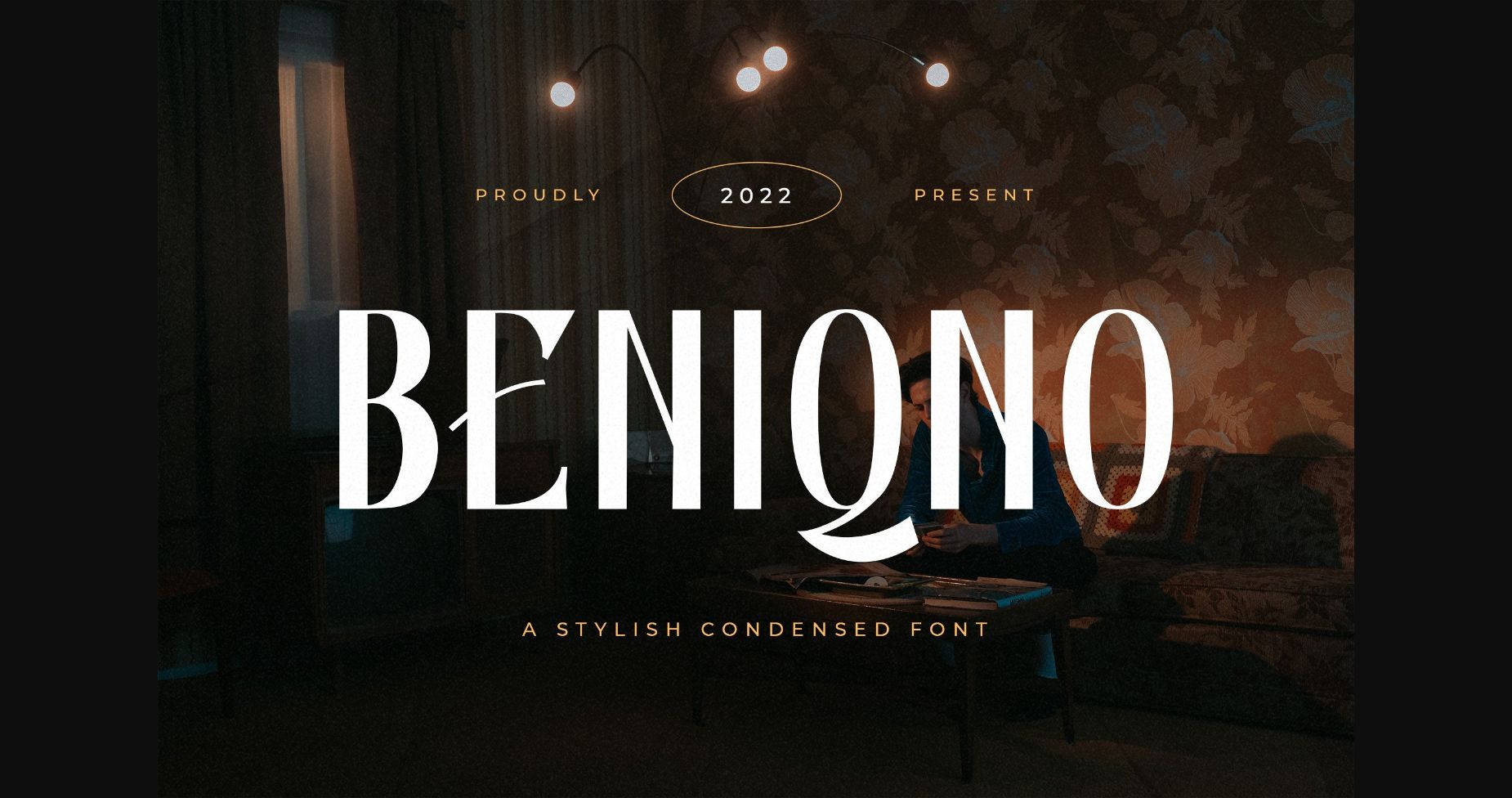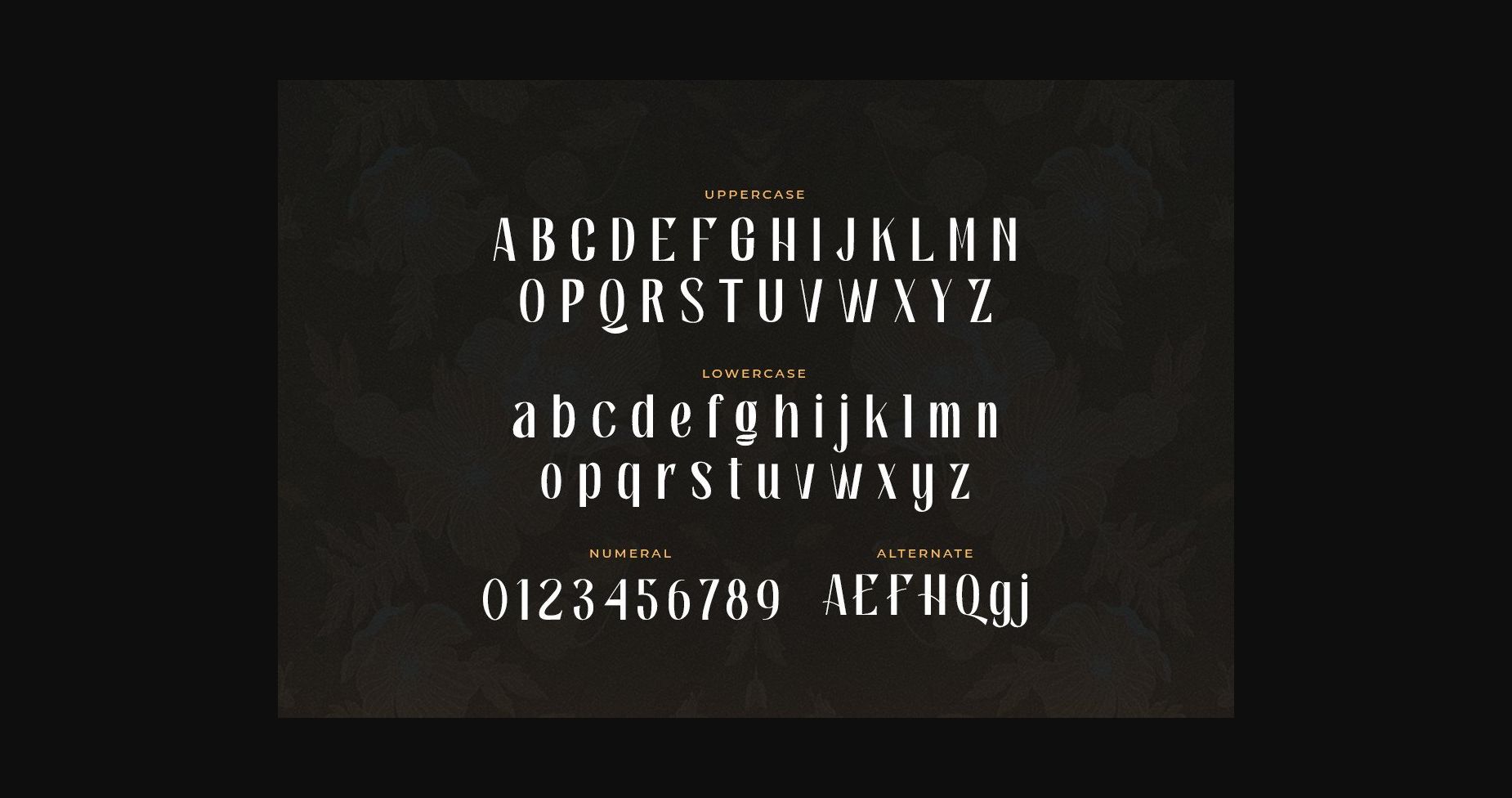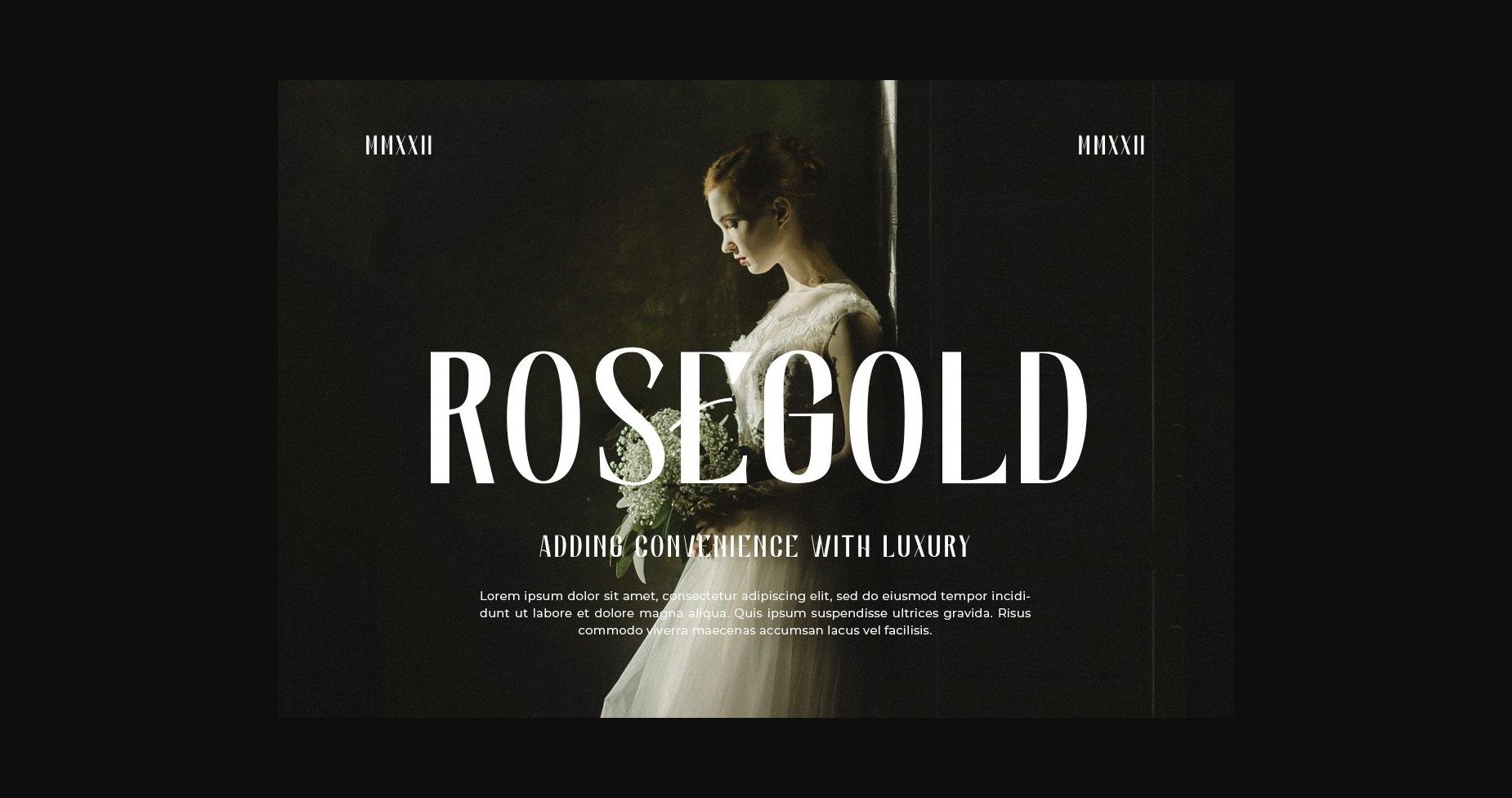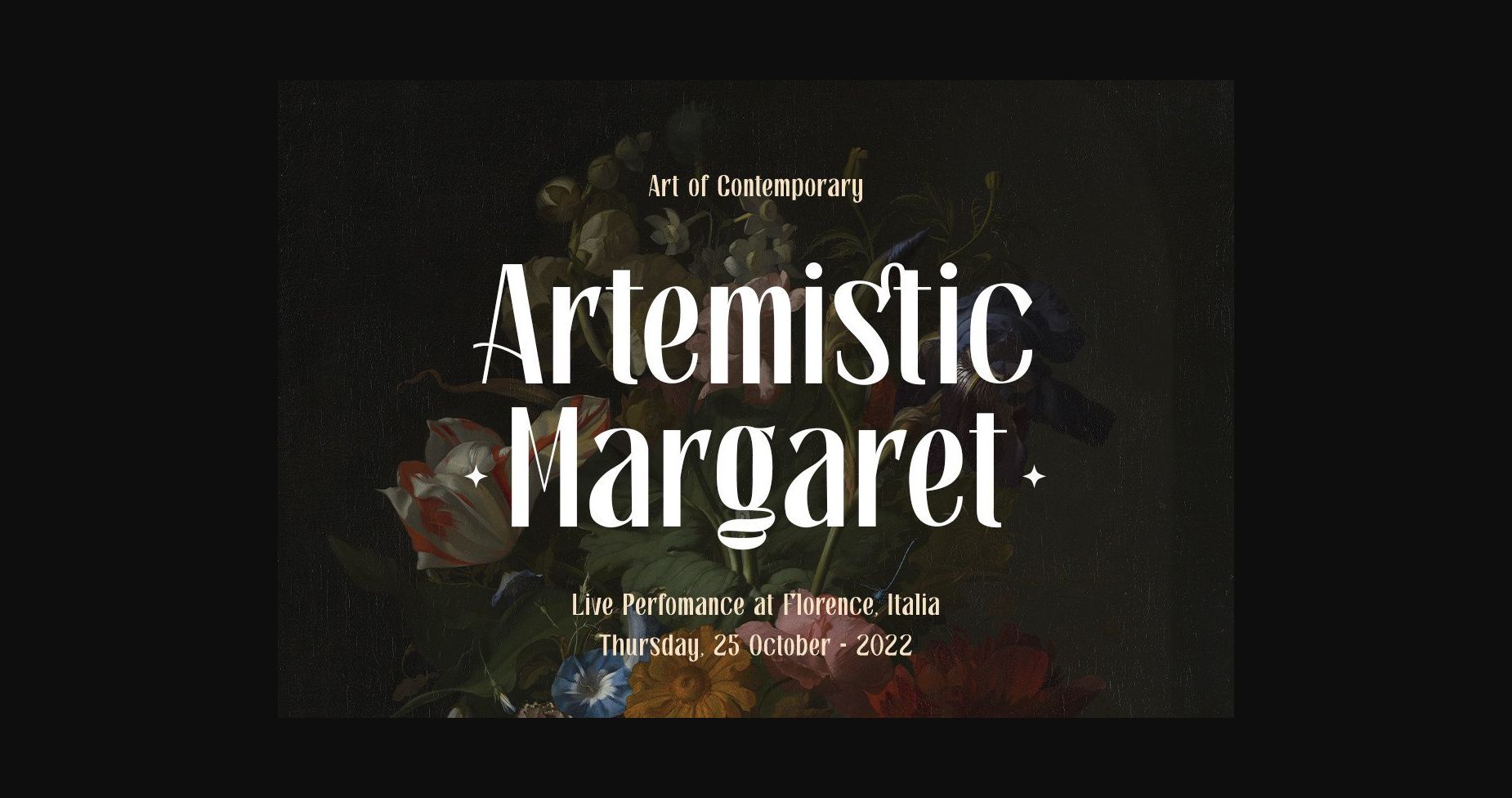
About Beniqno Font
Beniqno is a stylish condensed sans serif font perfect for your upcoming projects.
Use it to create a luxury logo and branding, classy editorial design, magazine, cosmetic brand, fashion promotional, art gallery branding, museum, historical of architectural, boutique branding, stationery design, blog design, modern advertising design, card invitation, art quote, home decor, book/cover title, special events, and any more.